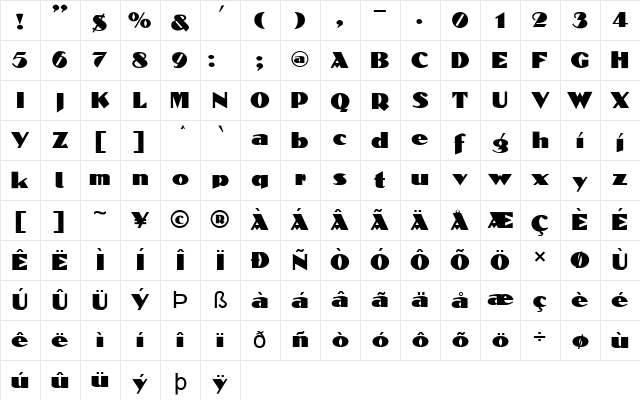
FZ JAZZY 53 Normal Free Font
FZ JAZZY 53 Normal
Design Context for FZ JAZZY 53
FZ JAZZY 53 is a composed and adaptable typeface that performs quietly and consistently across a wide range of design contexts.